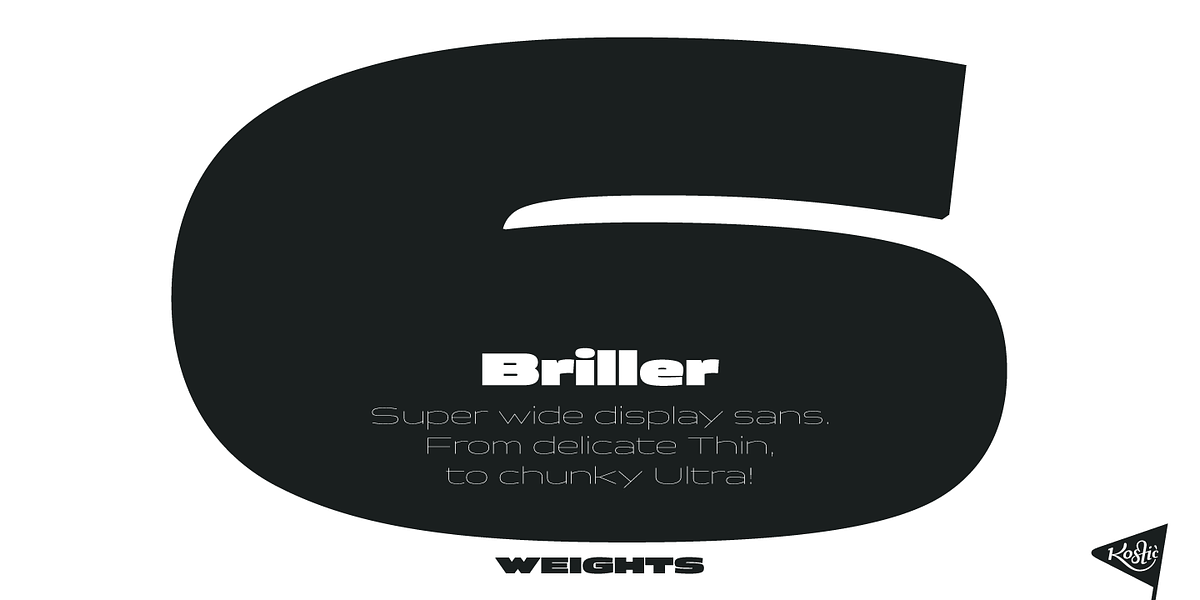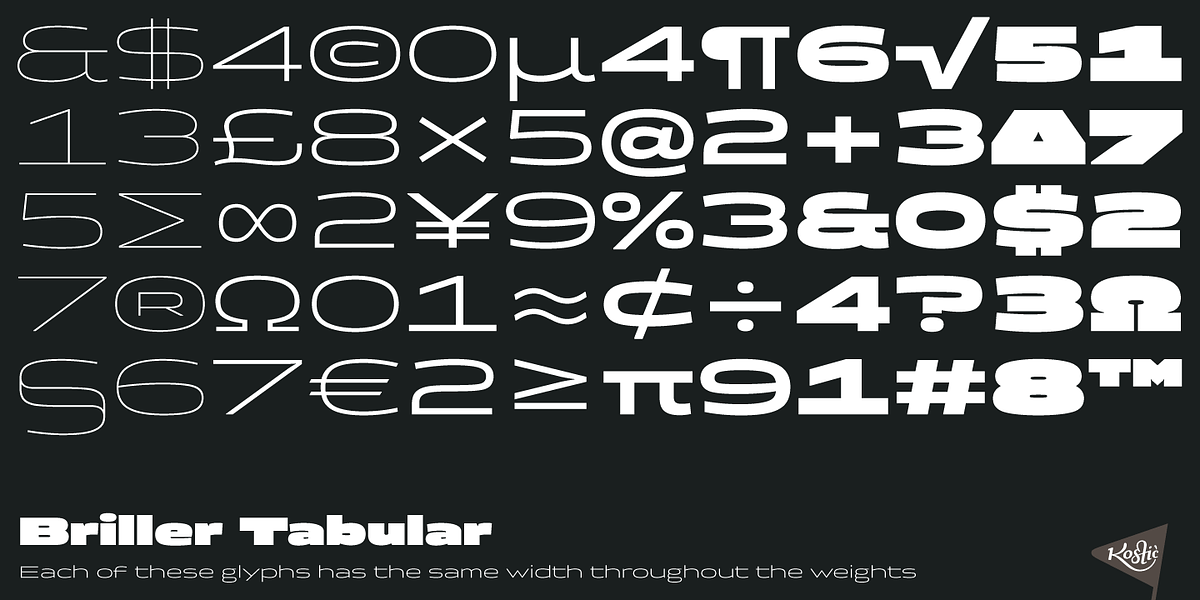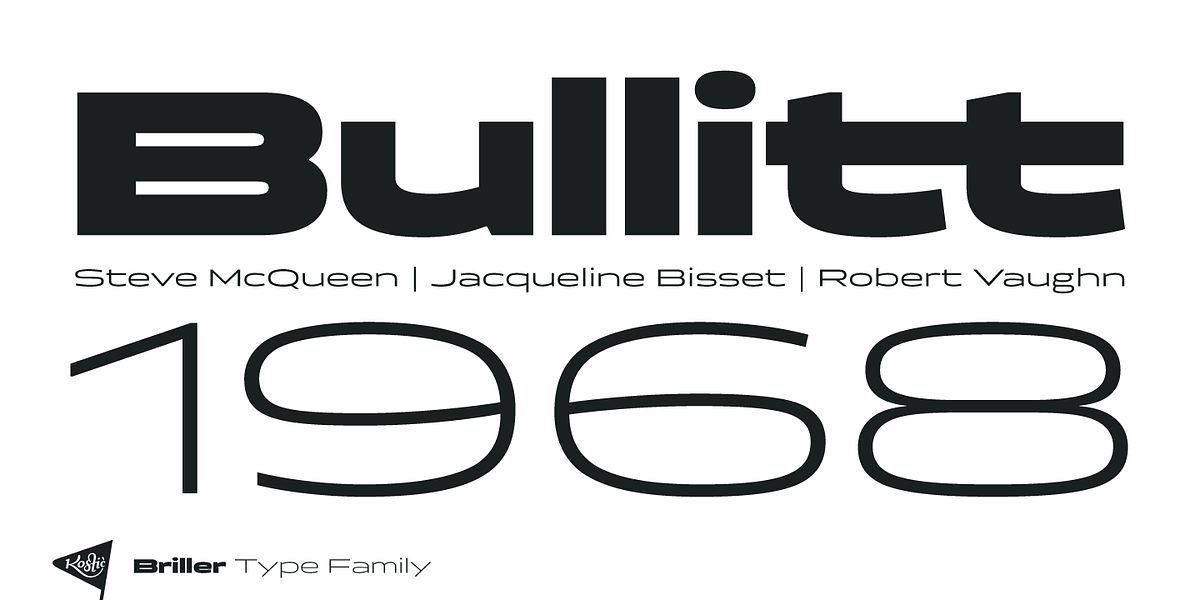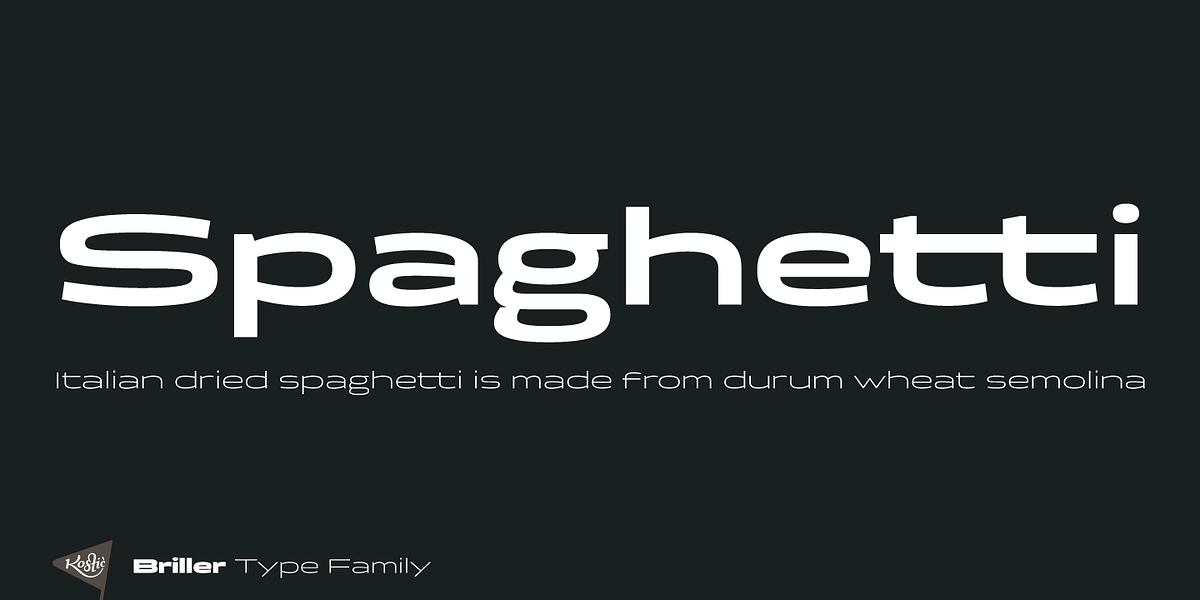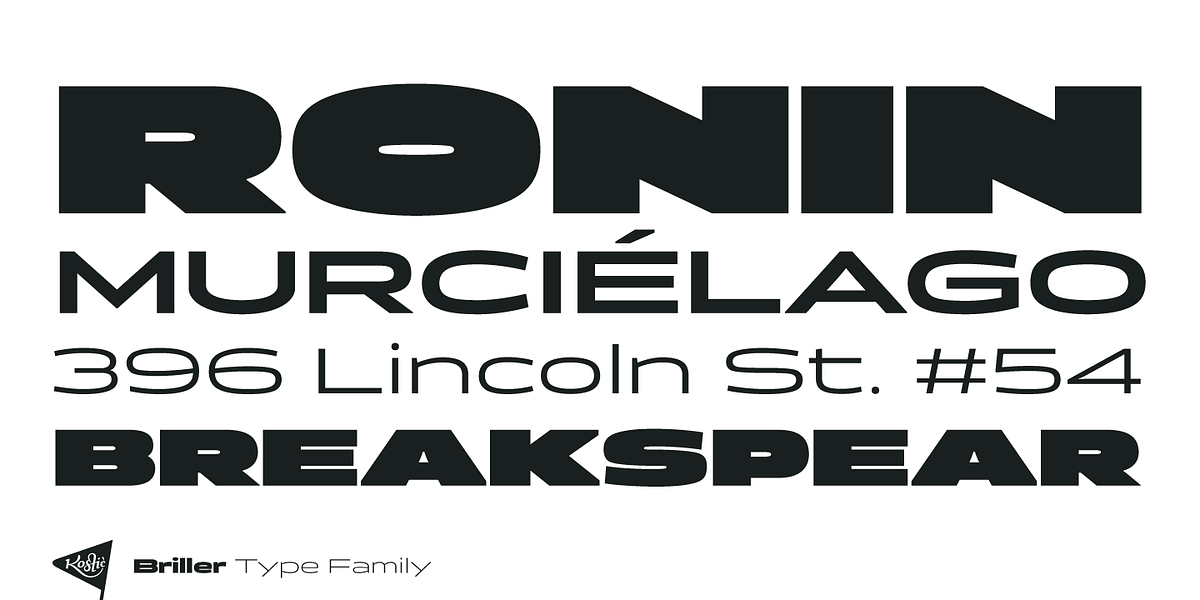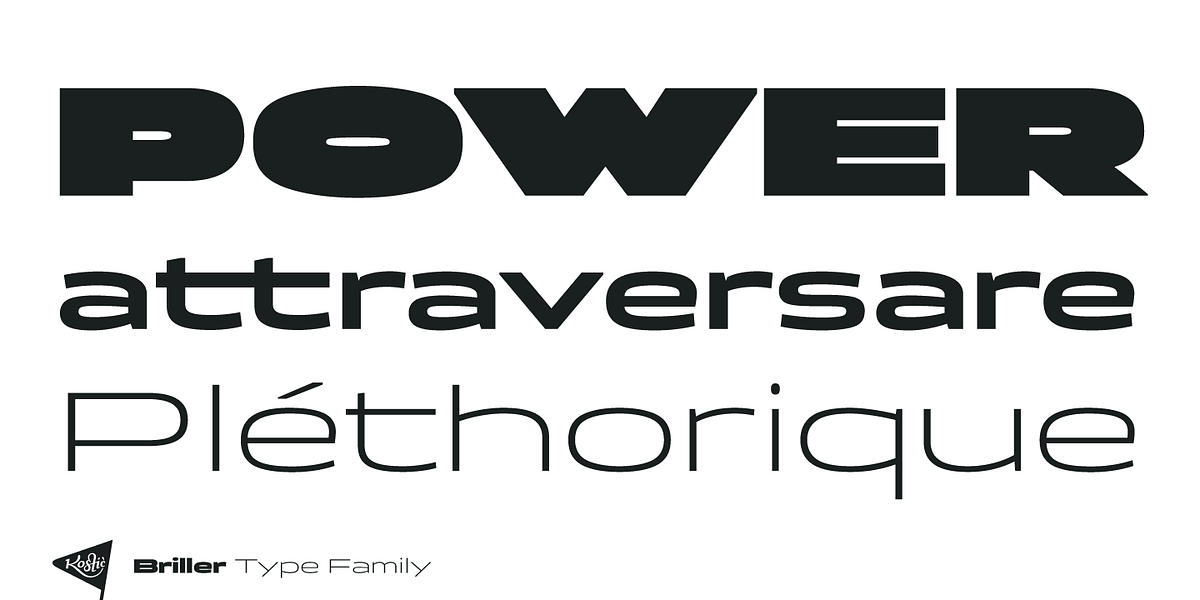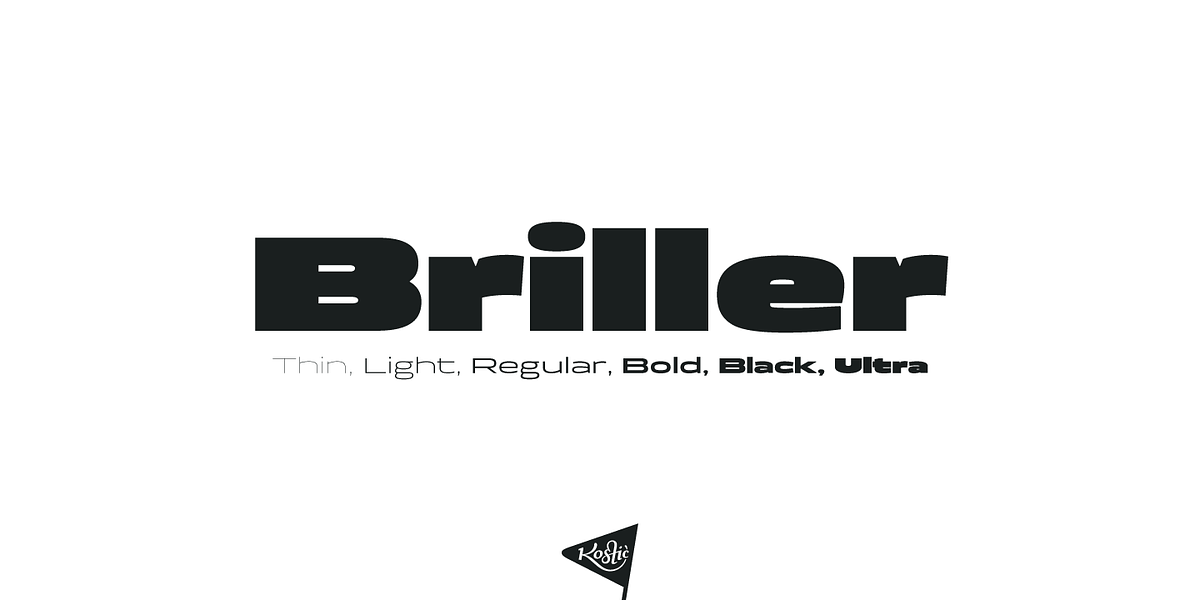
Briller
Briller is a super-wide display sans serif font that comes in six weights, ranging from delicate 'Thin' to chunky 'Ultra'. It features tabular figures and other figure-related glyphs that remain the same width across all weights. This allows for interesting typographic combinations while maintaining a sense of order.